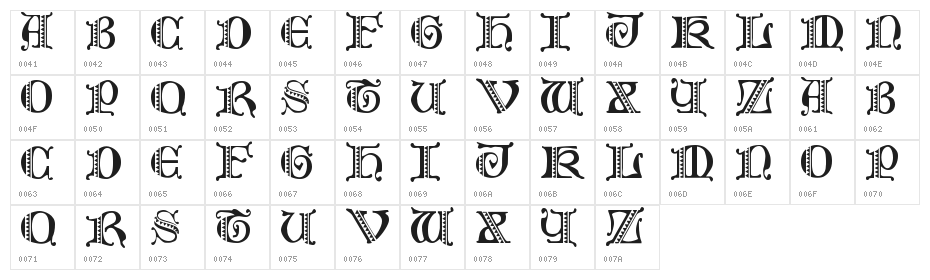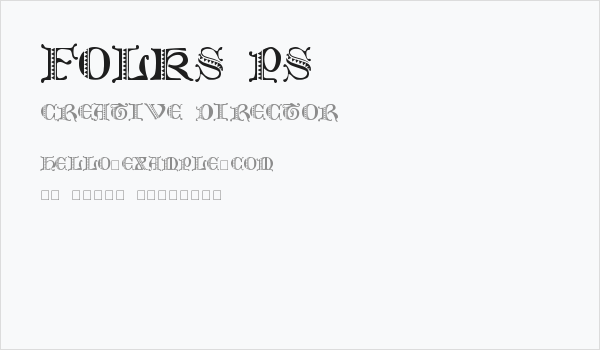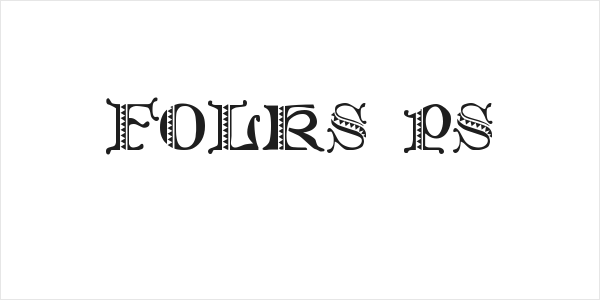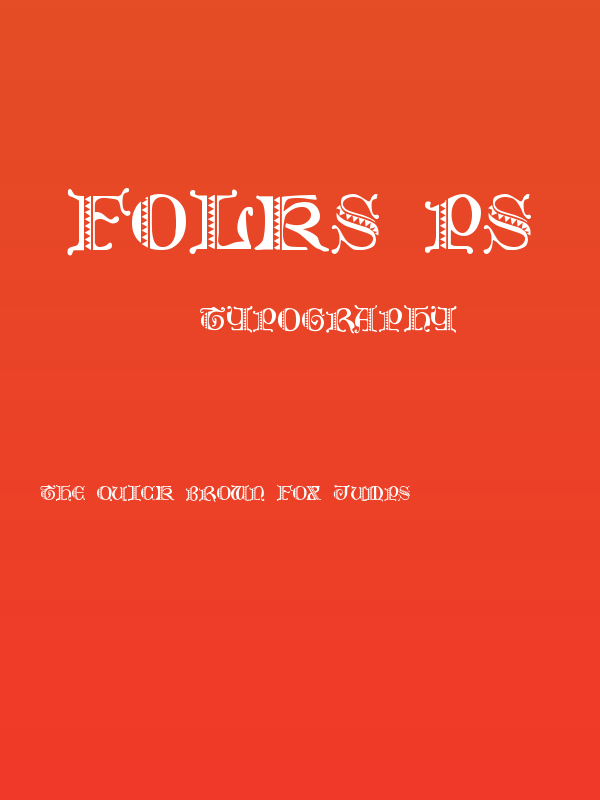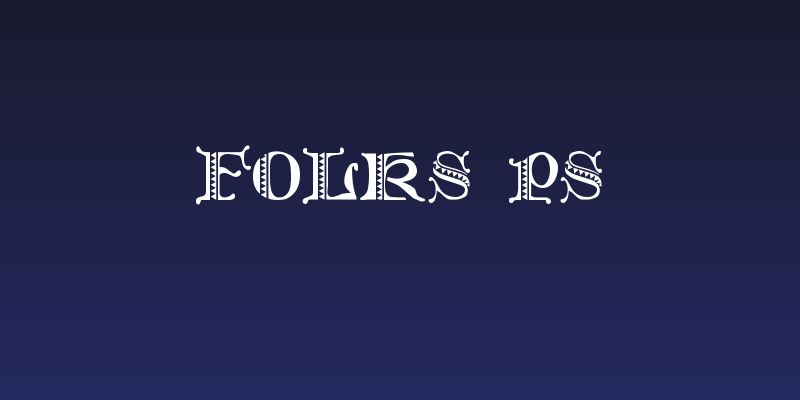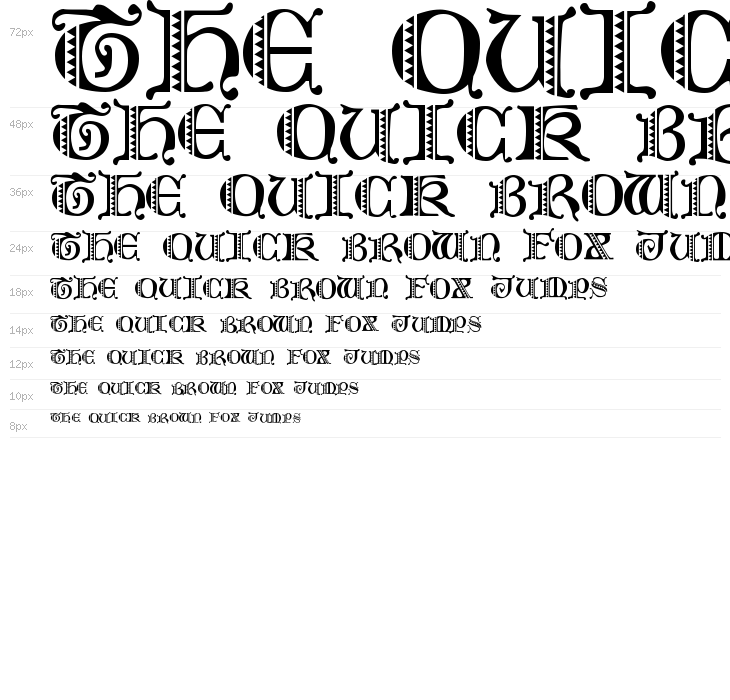
Folks PS Font
Folks PS Description
This font features an ornate and decorative style, characterized by intricate patterns and embellishments within each letter. The uppercase letters are bold and striking, with a distinct vintage flair reminiscent of old-world craftsmanship. The design includes elaborate serifs and flourishes, giving it a unique and artistic appearance. The font's intricate details make it suitable for projects that require a touch of elegance and sophistication. It is ideal for creating eye-catching headlines, posters, and branding materials that demand attention and convey a sense of luxury and tradition.
| Proposed Projects | Ideal for vintage-themed posters, luxury branding, wedding invitations, and artistic headlines. |